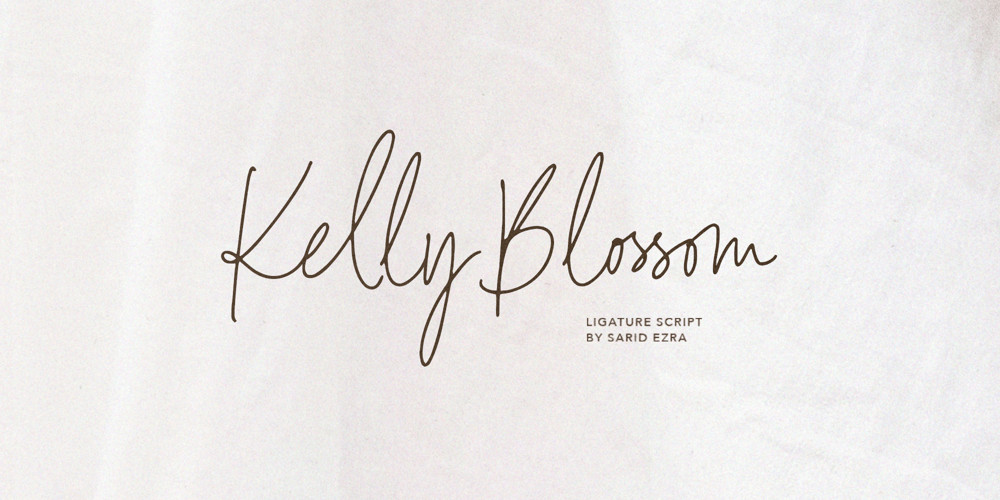
Kelly Blossom Font Family was designed by Sarid Ezra and published by Sarid Ezra. Kelly Blossom contains 1 styles and family package options. Kelly Blossom is a modern handwritten script with bunch of ligatures. You can use this font for any purposes such as quotes, branding, or wedding invitation. With many ligature this font have, your project looks more natural and unique. This font also support multi language.